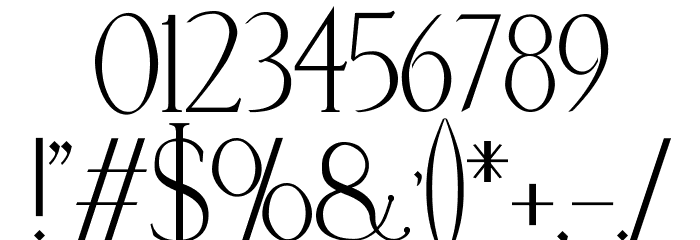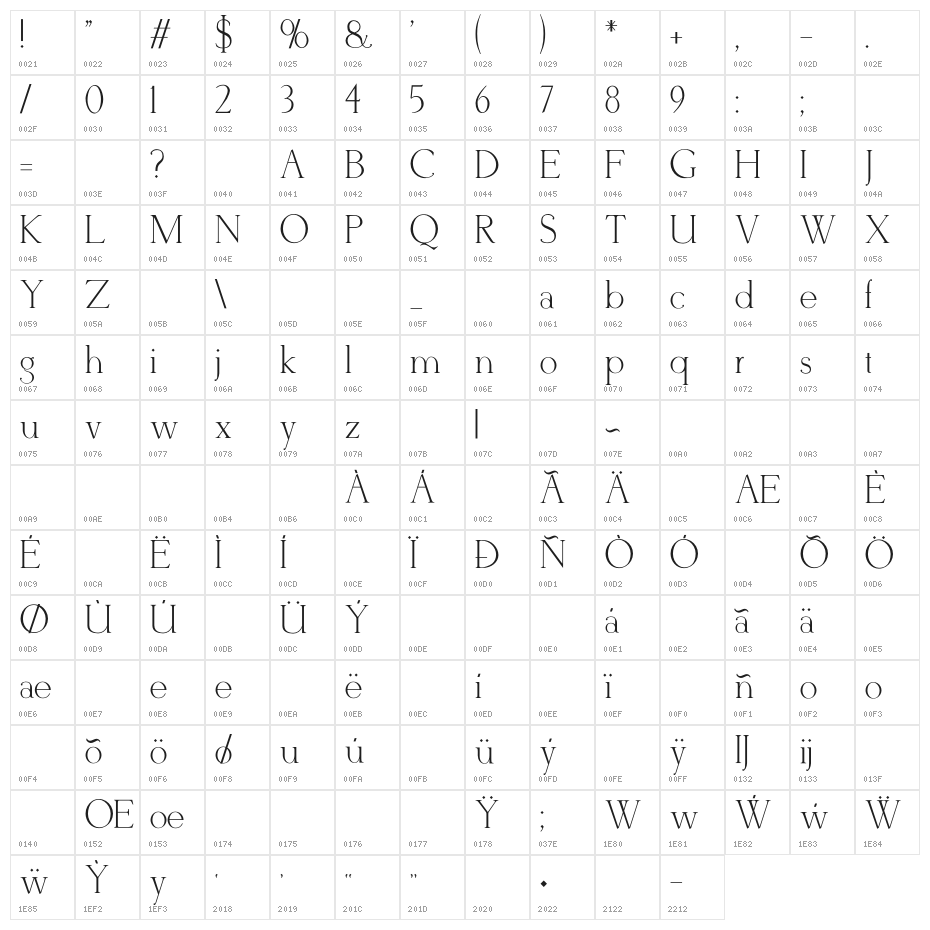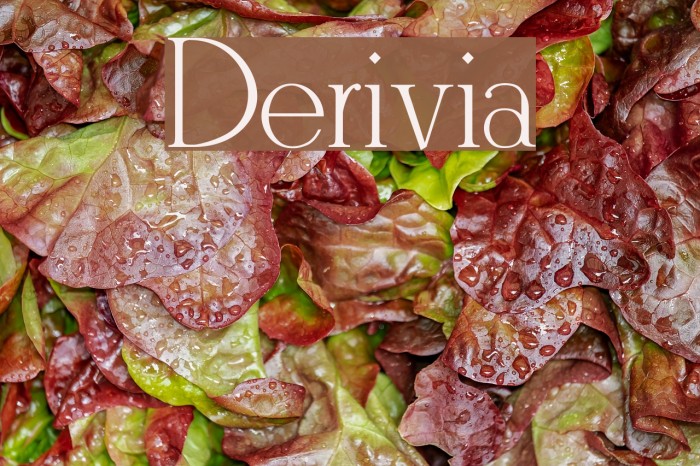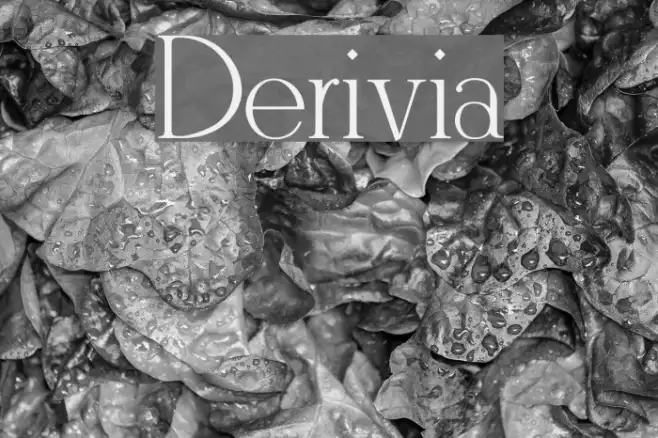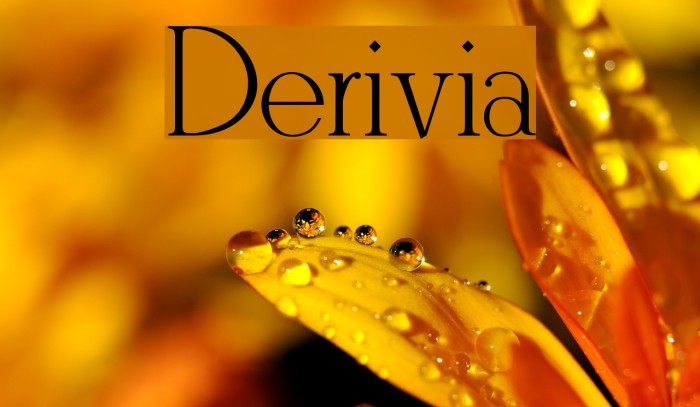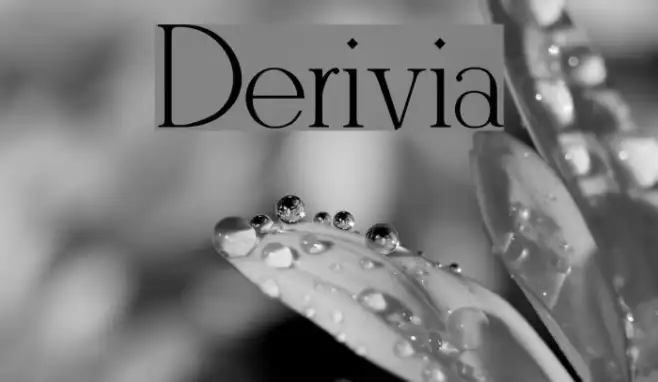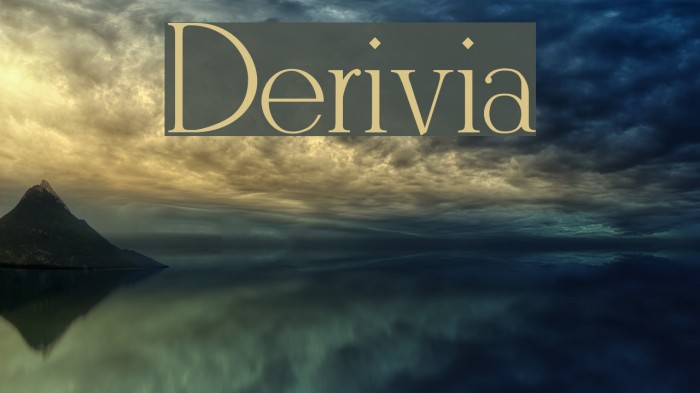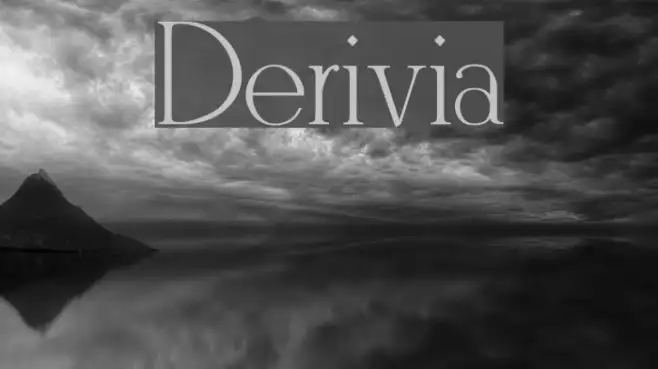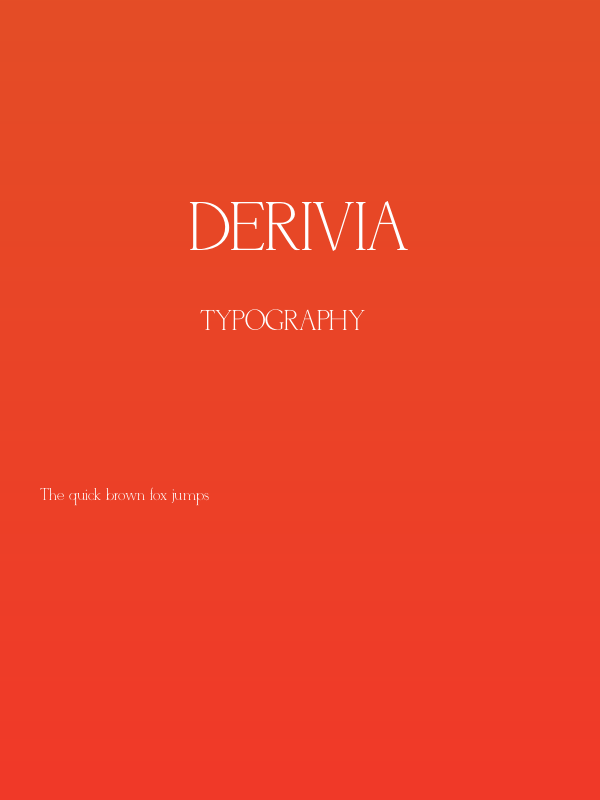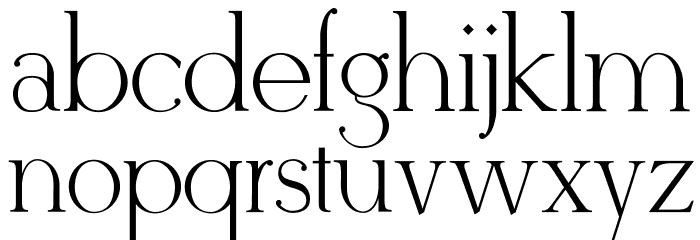
Derivia Font
Derivia Description
This font features a sophisticated and elegant serif design, characterized by its thin, elongated strokes and high contrast between thick and thin lines. The uppercase letters are tall and stately, with a refined presence that commands attention. The lowercase letters maintain a graceful flow, with subtle curves and delicate serifs that add to the overall elegance. The numerals are consistent with the font's style, offering a clean and classic look. Special characters are thoughtfully designed, maintaining the font's aesthetic integrity. This font is ideal for projects that require a touch of sophistication and class, such as luxury branding, editorial design, and formal invitations.
| Proposed Projects | Luxury branding, editorial design, formal invitations, and high-end product packaging. |